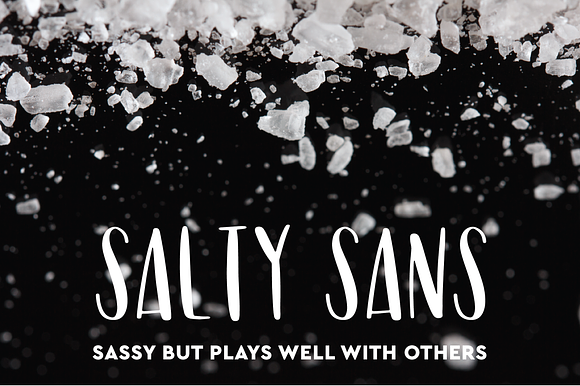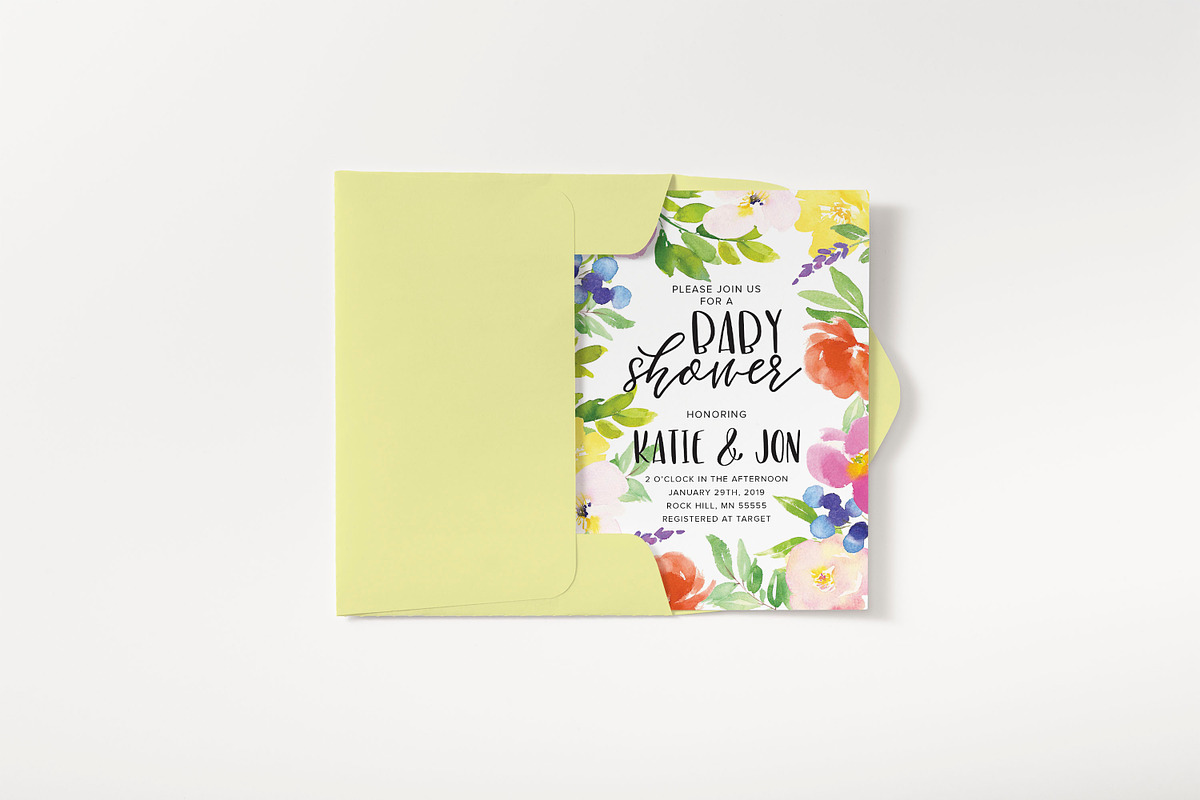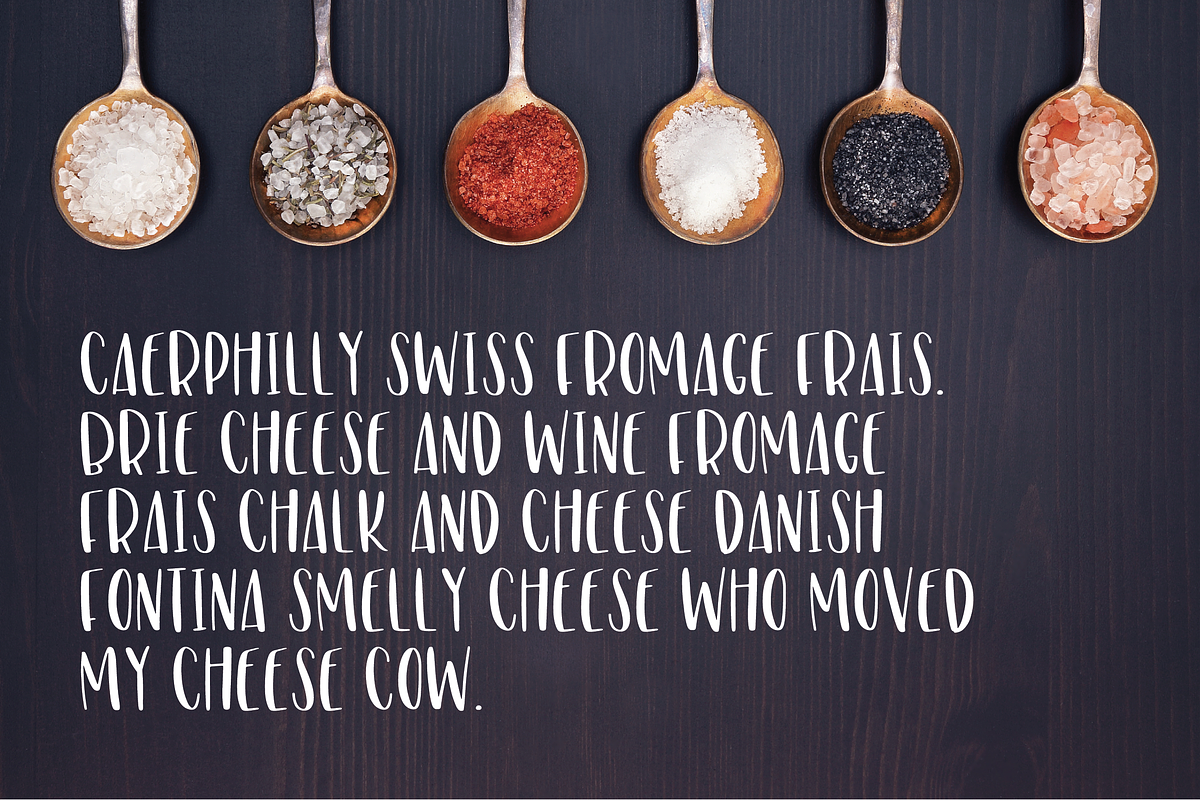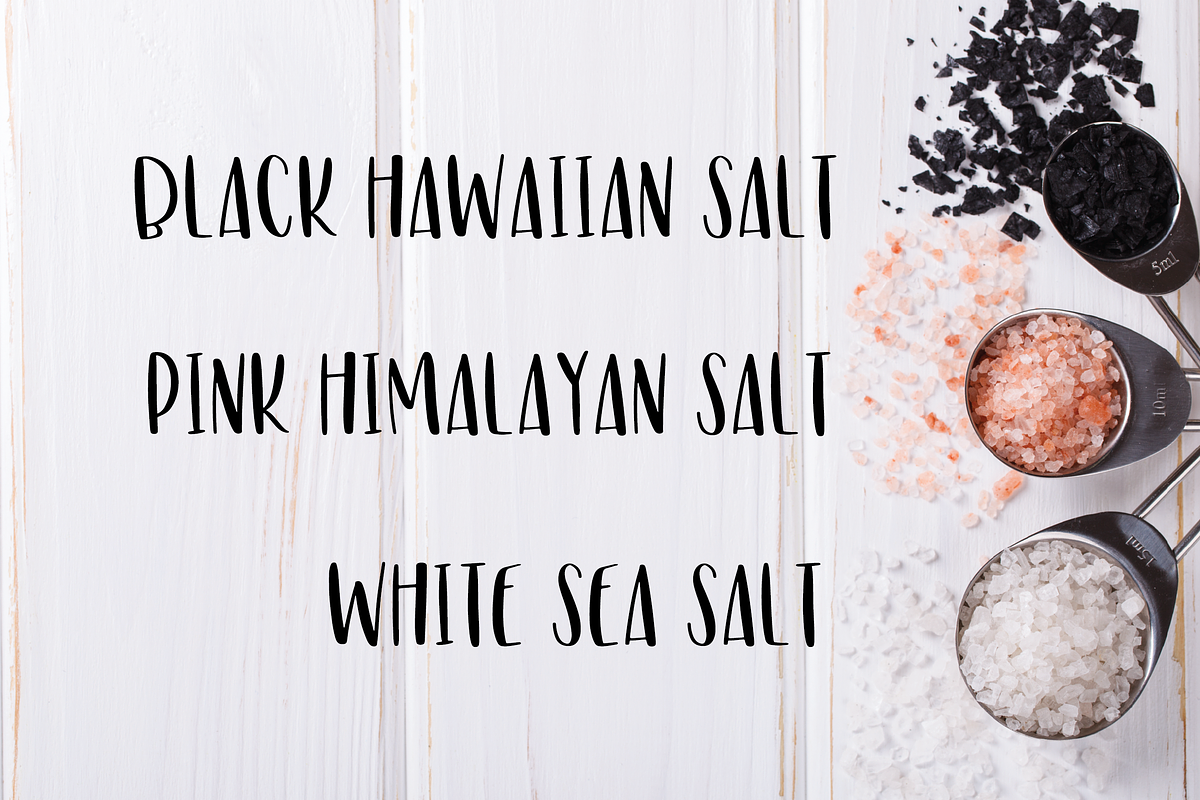
Salty Sans Typeface
Salty Sans is a sassy hand lettered sans serif that pairs well with other fonts!
Why Salty Sans Typeface is worth a look
Salty Sans Typeface by Hewitt Avenue fits naturally into Branding, posters, packaging, typography.